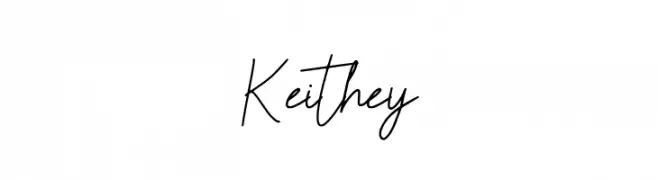
A playful, decorative uppercase font with a hand-drawn, whimsical style.
A casual handwritten font with a fluid and personal touch.
A playful font with characters designed to look like they are drawn on pencils.
An elegant script font with flowing, cursive strokes and refined details.
A playful, hand-drawn font with looping, whimsical characters.
An elegant, flowing script font with decorative swirls and loops.
An elegant italic font with a modern yet classic style.
A dynamic italic font with smooth, flowing curves and a sophisticated style.